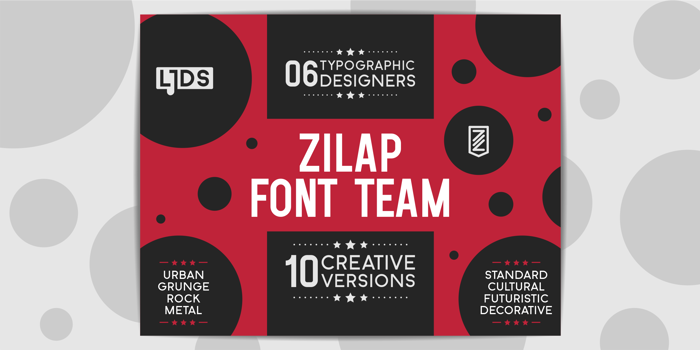
Zilap Font Team
Culture Style
Future Style
Grunge Style
Urban Style
ZILAP FONT TEAM: Is a family of sans serif fonts inspired by simple geometric structures. It is more suitable as a main source of graphic design in general, poster design, websites, among others. It has a basic and versatile uppercase display with a very complete character map for projects. It has a great variety of creative styles made by different designers.